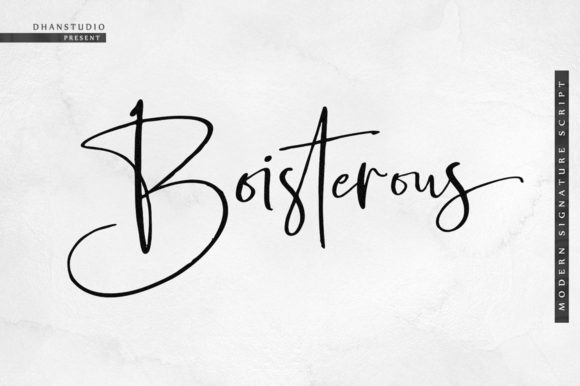
Introducing Boisterous Script Font: Elevate Your Designs with Elegance and Sophistication
In the world of typography, a well-crafted font can make all the difference in creating visually stunning designs that capture the essence of a brand or message. Among the numerous fonts available, Boisterous Script Font stands out as a fashionable and elegant handwriting font that brings a touch of luxury to various design applications. With its signature style and modern twist, Boisterous is perfect for designers seeking to add a dash of sophistication to their projects.
The Boisterous Advantage: A Signature Style with a Modern Touch
Boisterous Script Font boasts a unique and distinctive style that sets it apart from other fonts. Its elegant handwriting design exudes a sense of refinement and poise, making it an ideal choice for designers who want to create a lasting impression. The font’s modern touch ensures that it remains contemporary and relevant, allowing designers to create fresh and engaging content that resonates with their audience.
Design Applications for Boisterous Script Font
The versatility of Boisterous Script Font makes it suitable for a wide range of design applications. Some of the most popular uses for this font include:
- Branding: Establish a strong brand identity with Boisterous Script Font, perfect for creating logos, business cards, and marketing materials that exude elegance and sophistication.
- Logos: Create stunning logos that make a lasting impression with the font’s unique and distinctive style.
- Business Cards: Elevate your business cards with Boisterous Script Font, adding a touch of luxury and refinement to your professional networking materials.
- Posters: Create eye-catching posters that showcase your message in style, using Boisterous Script Font to add a dash of elegance and sophistication.
- Invitations: Make your invitations truly special with Boisterous Script Font, perfect for weddings, parties, and other events that require a touch of class.
- Greeting Cards: Add a personal touch to your greeting cards with Boisterous Script Font, creating heartfelt and memorable messages for friends and family.
- News: Use Boisterous Script Font to create engaging and informative news content, adding a touch of elegance to your publication.
- Product Packaging: Elevate your product packaging with Boisterous Script Font, creating a luxurious and high-end feel that sets your product apart.
- Blog Posters: Create stunning blog posters that showcase your content in style, using Boisterous Script Font to add a dash of sophistication and elegance.
- Personal Charms: Add a personal touch to your designs with Boisterous Script Font, perfect for creating custom charms and accessories that reflect your personality.
Why Choose Boisterous Script Font?
With so many fonts available, why choose Boisterous Script Font? Here are just a few reasons why designers and typographers love this elegant handwriting font:
- Unique Style: Boisterous Script Font boasts a distinctive style that sets it apart from other fonts, ensuring your designs stand out from the crowd.
- Elegance and Sophistication: Add a touch of luxury and refinement to your designs with Boisterous Script Font, perfect for creating high-end content.
- Versatility: Use Boisterous Script Font across a wide range of design applications, from branding and logos to posters and invitations.
- Modern Touch: The font’s modern twist ensures that it remains contemporary and relevant, allowing designers to create fresh and engaging content.
Tips for Using Boisterous Script Font
To get the most out of Boisterous Script Font, here are a few tips to keep in mind:
- Use it Sparingly: Boisterous Script Font is perfect for adding a touch of elegance to your designs, but use it sparingly to avoid overwhelming your content.
- Pair it with Other Fonts: Experiment with pairing Boisterous Script Font with other fonts to create visually stunning combinations that add depth and interest to your designs.
- Adjust the Size and Color: Play with the size and color of Boisterous Script Font to create visual hierarchy and emphasis in your designs.
- Experiment with Effects: Try adding effects such as shadows, gradients, or textures to Boisterous Script Font to create unique and eye-catching designs.
Boisterous Script Font is a fashionable and elegant handwriting font that brings a touch of luxury and sophistication to various design applications. With its signature style and modern twist, Boisterous is perfect for designers seeking to create visually stunning content that resonates with their audience. Whether you’re designing branding materials, logos, posters, or invitations, Boisterous Script Font is the perfect choice for adding a dash of elegance and refinement to your designs.